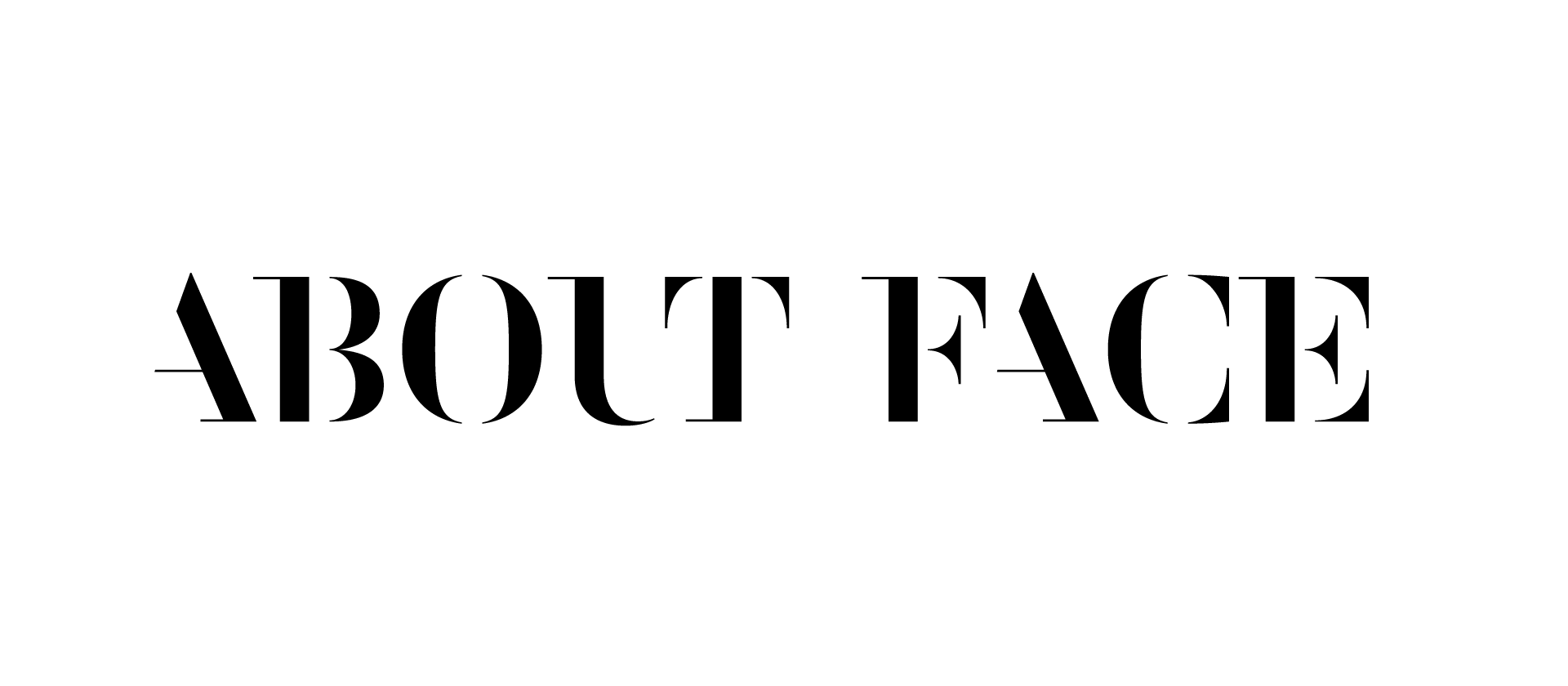
About Face
Custom Fonts2012
A display typeface for the About Face, NZ chain of skin therapy clinics in New Zealand. The design process started with a redrawing of the original wordmark, which was followed by an expansion of the character set into a full font. The construction of the stencilled glyphs is based on Didone capitals, the missing strokes and serifs aim to capture the sense of transformation from one state into another.